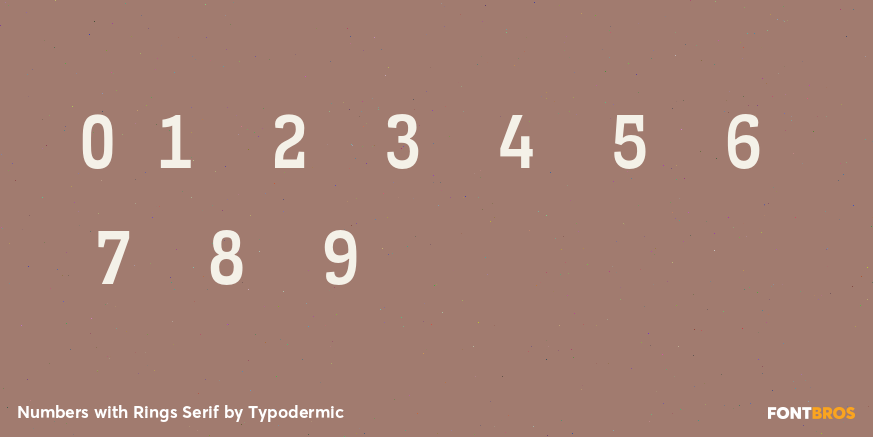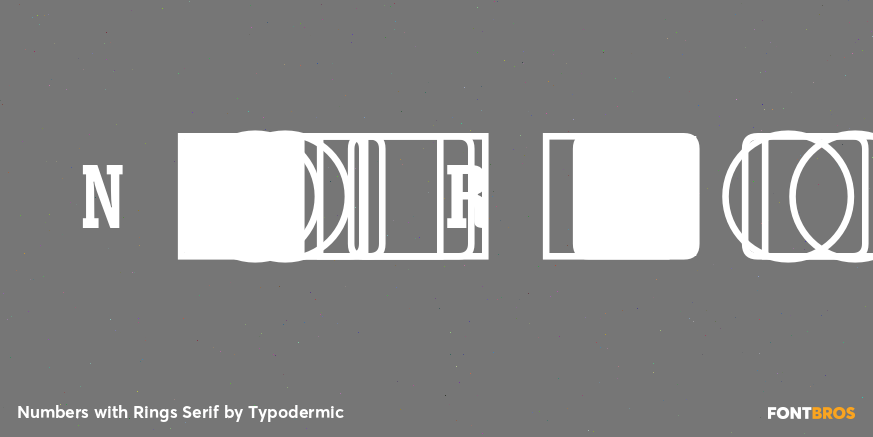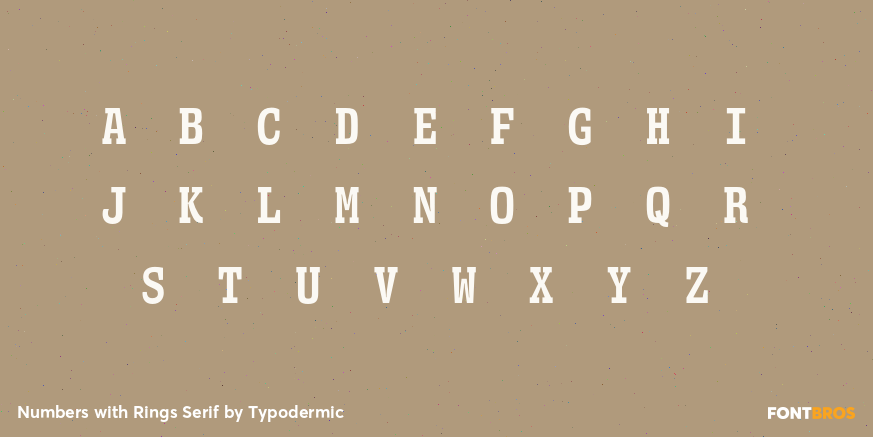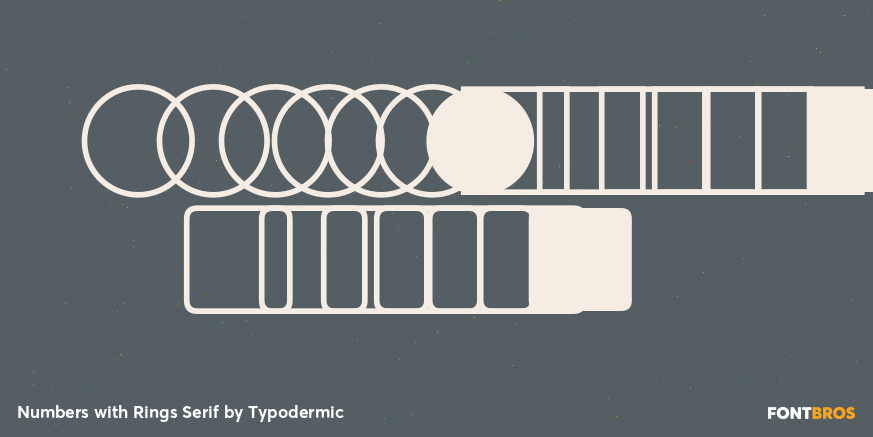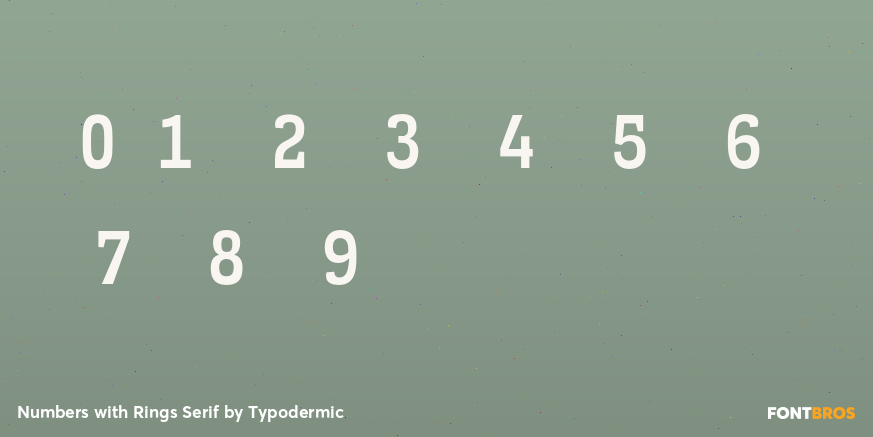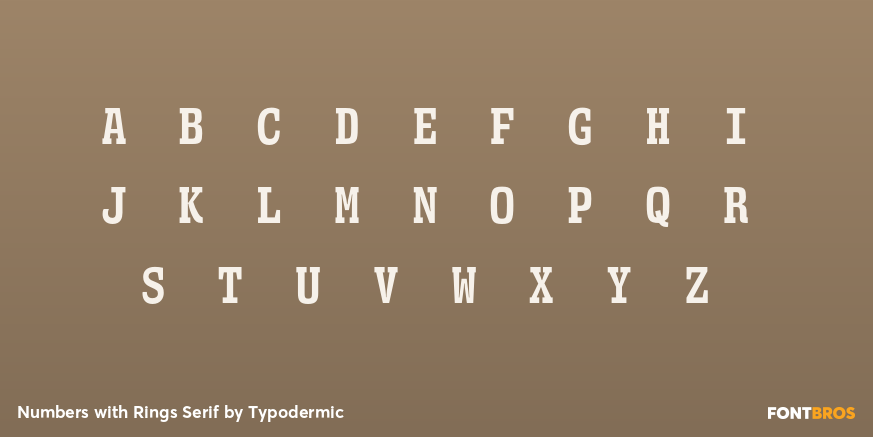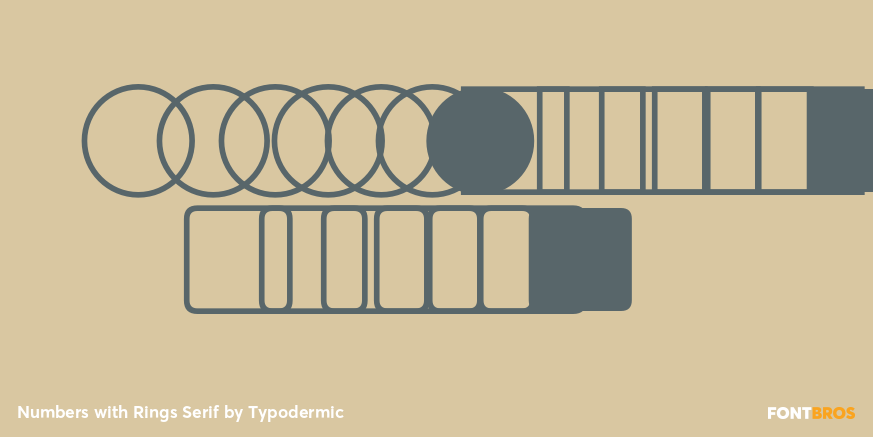
Numbers with Rings Serif
Buy NowNumbers with Rings Serif brings a compact slab-serif voice to the family’s automated marker system. Its firm serifs give numbers, capital letters, question marks, and alphanumeric codes a more traditional typographic character, while retaining one- to six-character constructions, alternate enclosure shapes, and a solid background component for layered color treatments.
Use Serif for parts catalogs, reference diagrams, editorial infographics, packaging labels, archival-style graphics, and information systems that need ringed markers with a more established tone. It keeps the same editable-marker workflow as Digital and Sans, but changes the visual register enough to work as a distinct design choice.